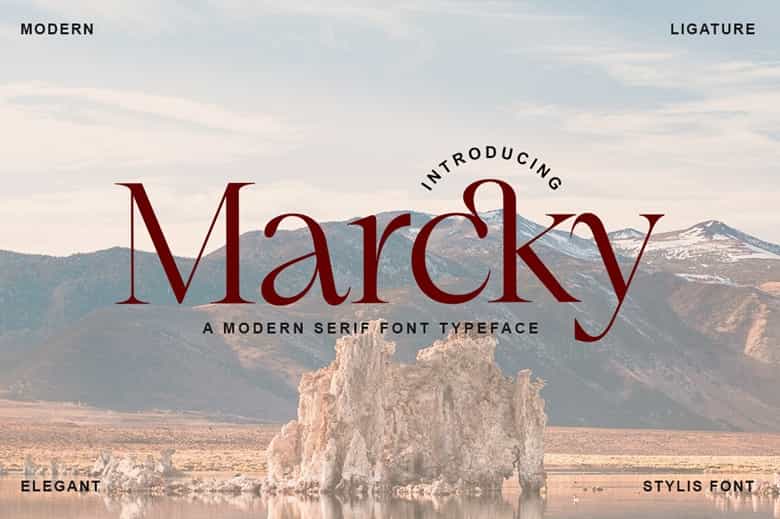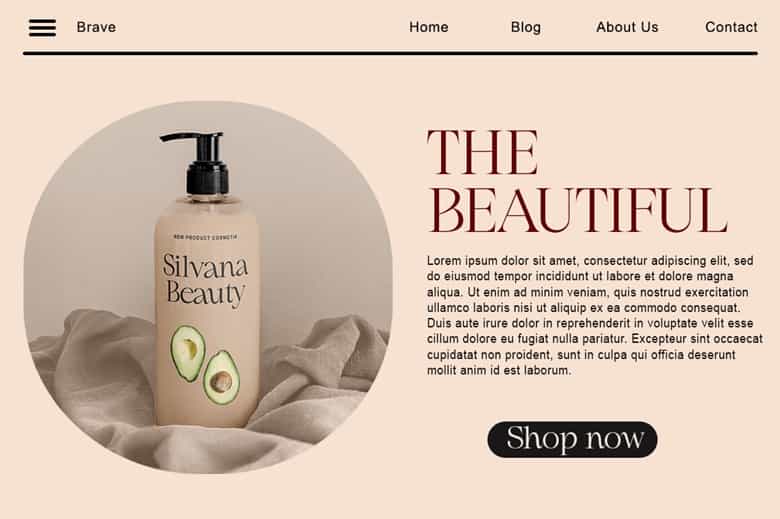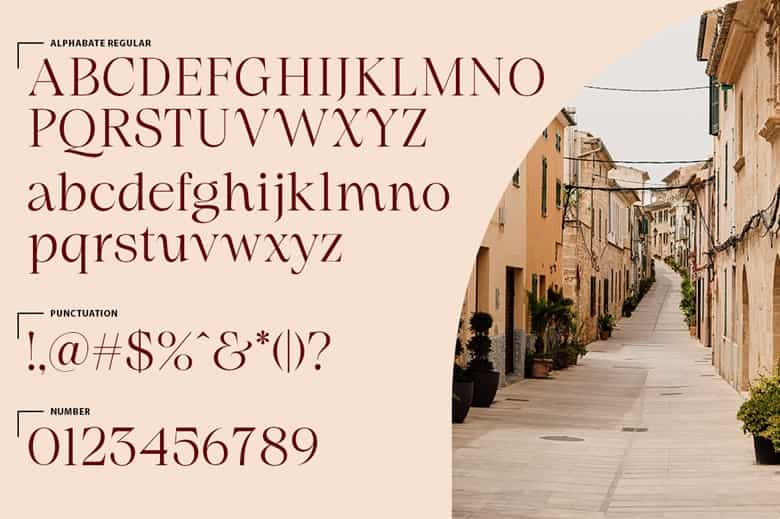
Marcky is a serif typeface with artistic handwriting flaws that grant the font a carefree aesthetic. The characters appear to have been written with ease and without much stress, which can be interpreted to mean that it was created with the intention of being friendly.